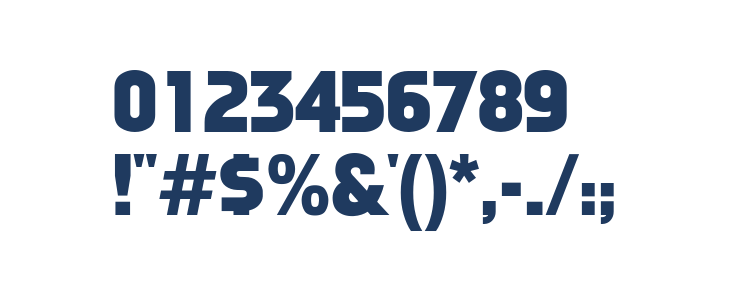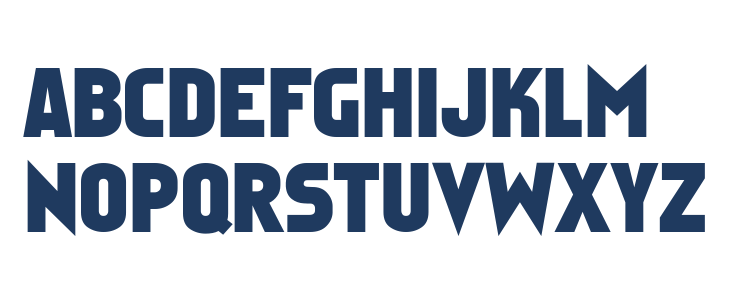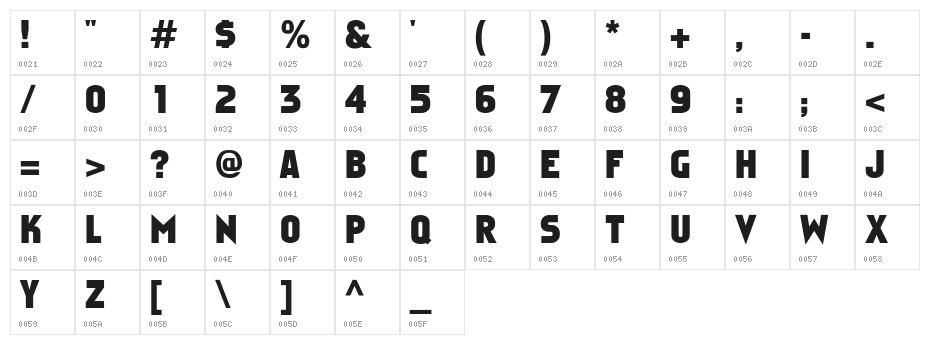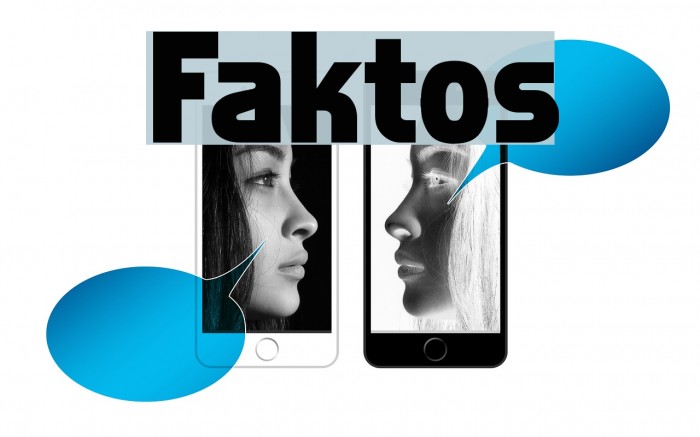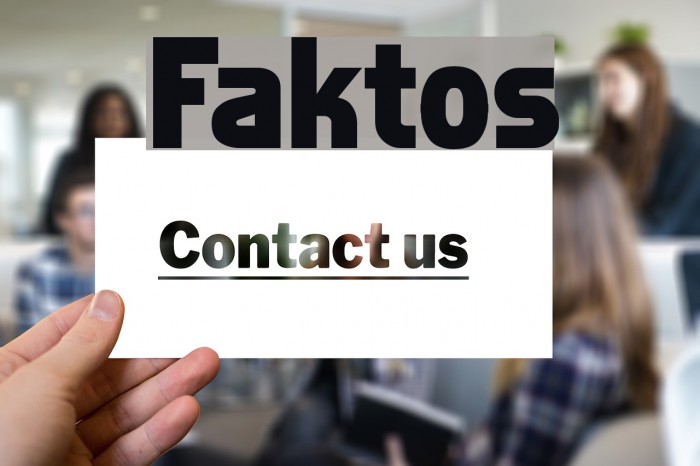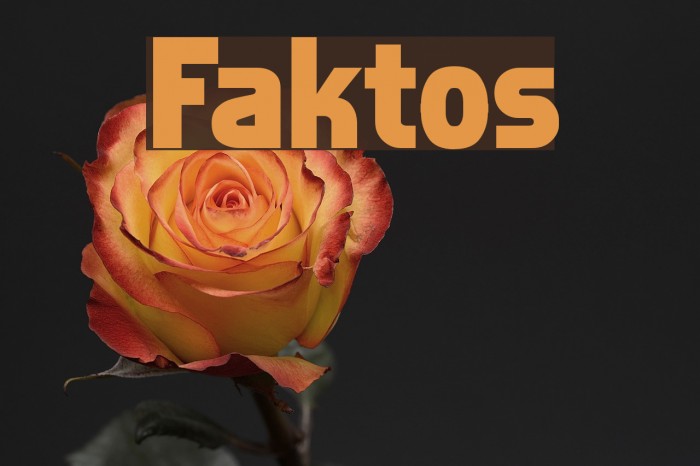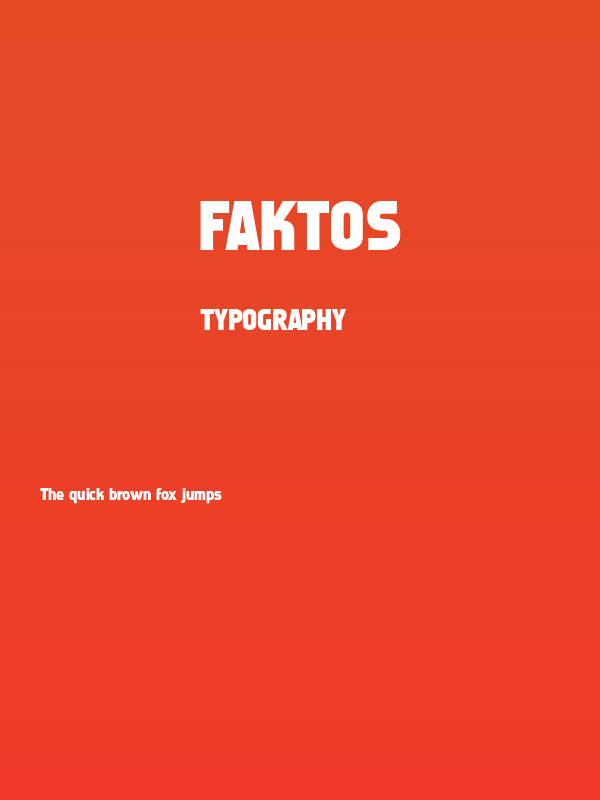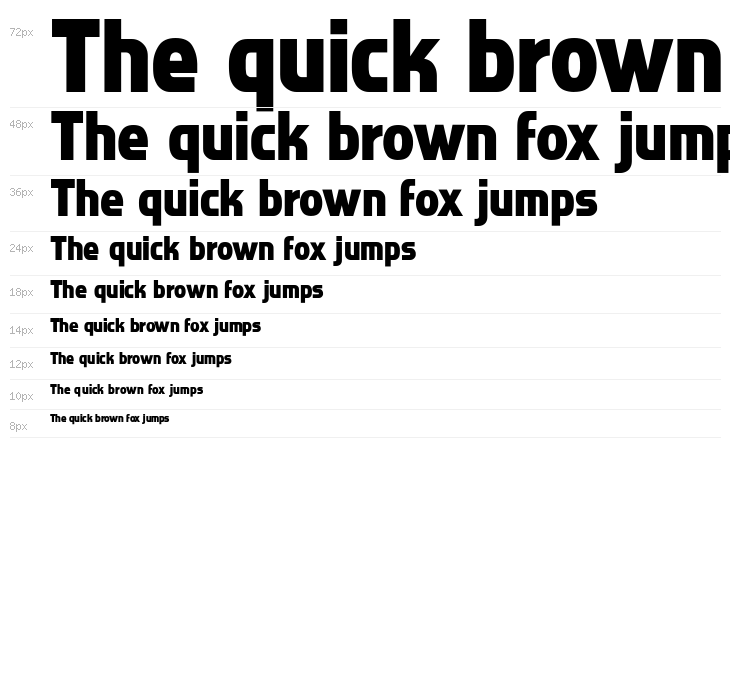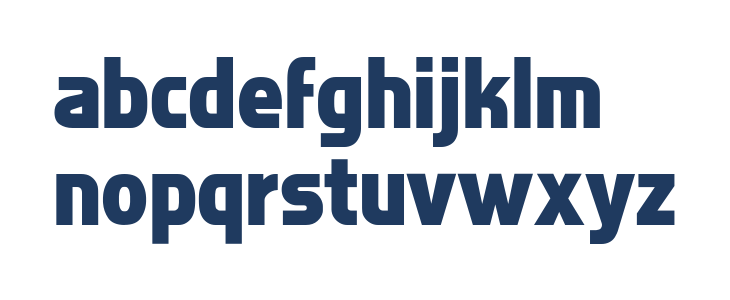
Faktos Font
Faktos Description
This font features a bold and robust design with strong geometric shapes and a modern aesthetic. The uppercase and lowercase letters are well-balanced, with consistent stroke widths that convey a sense of stability and confidence. The numerals are clear and easy to read, maintaining the same boldness as the alphabet. Special characters are included, matching the overall style with a cohesive look. The font's design is clean and straightforward, making it suitable for a variety of applications where clarity and impact are essential.